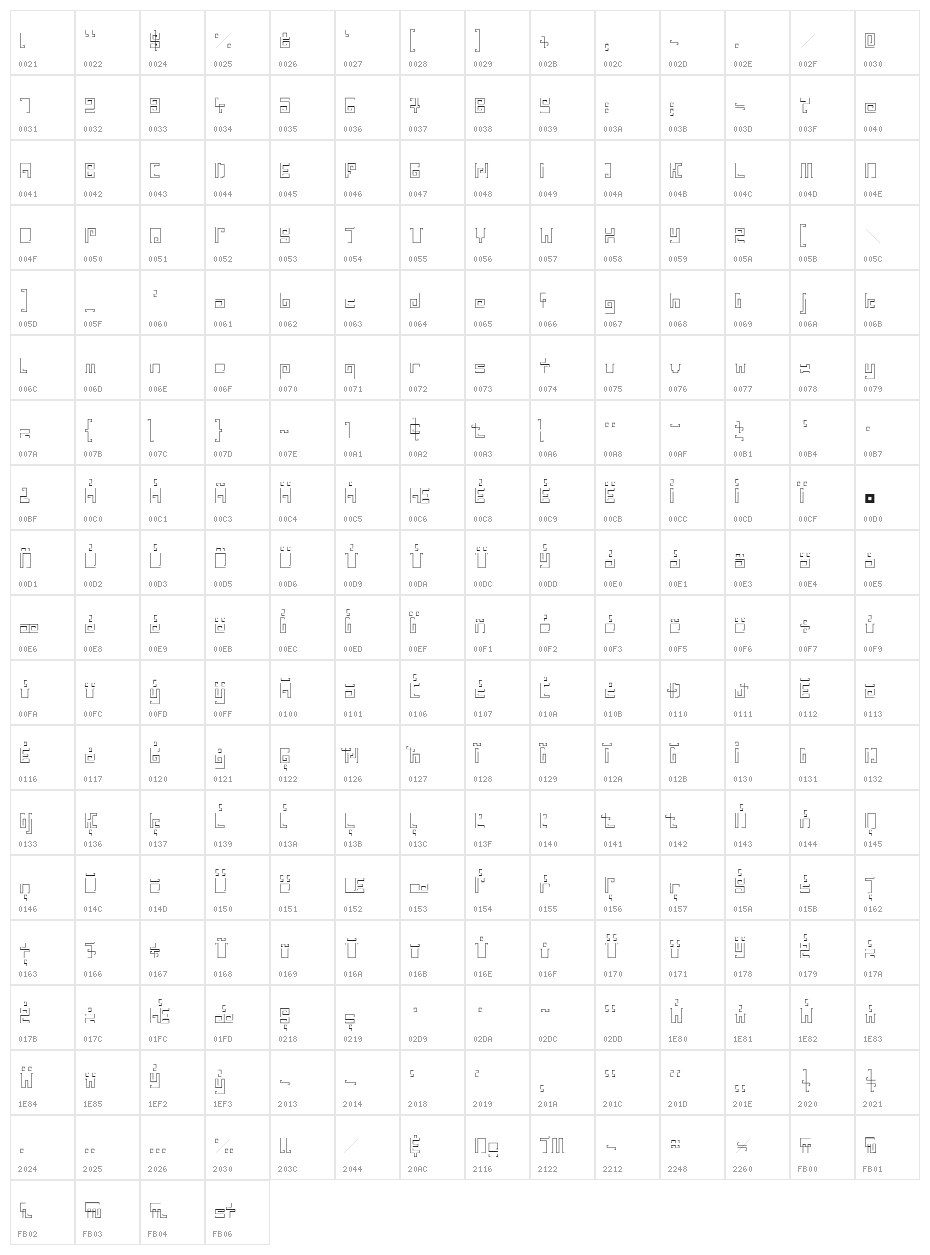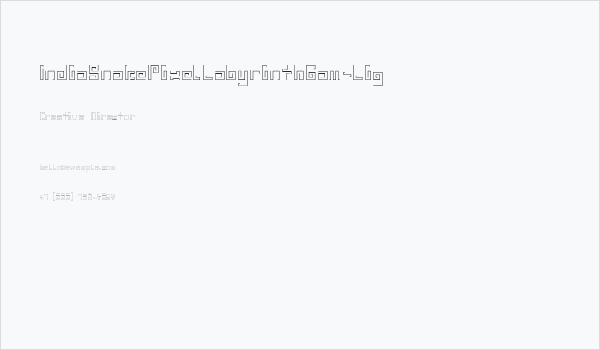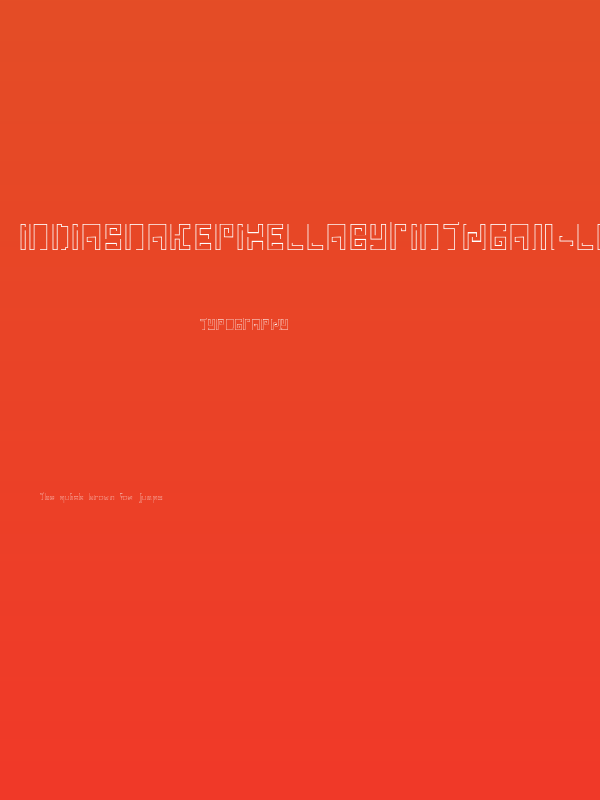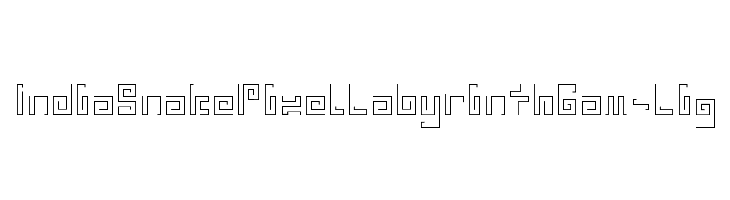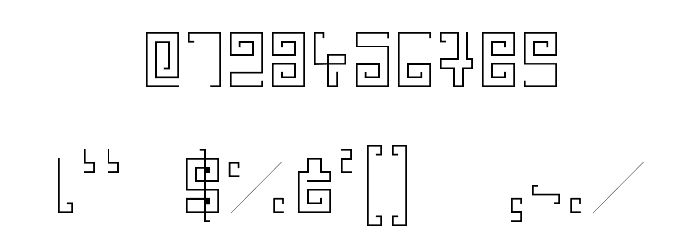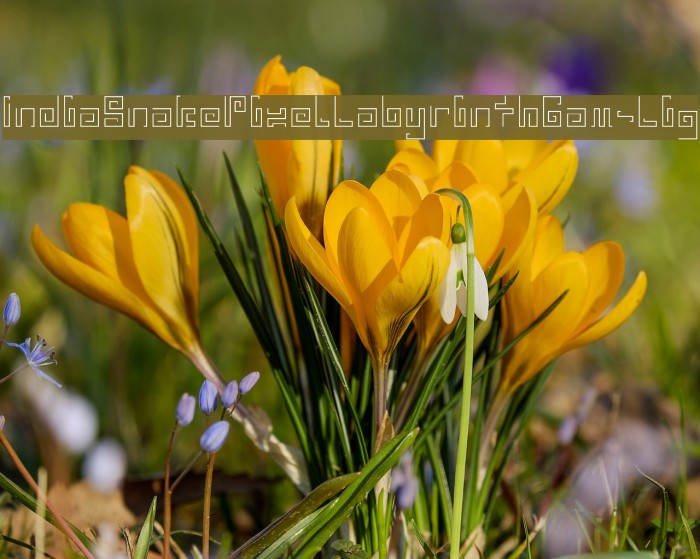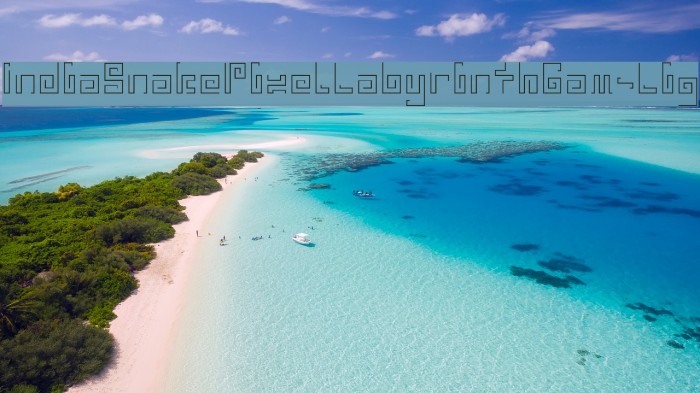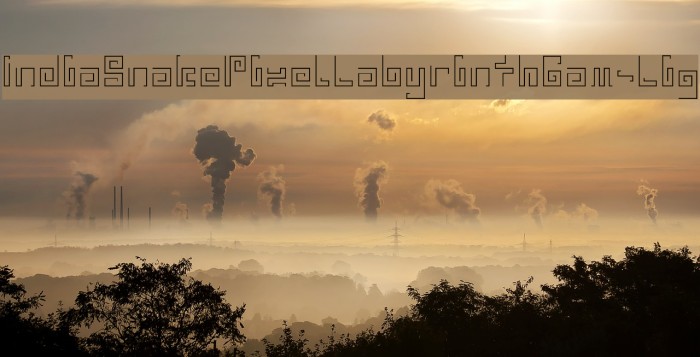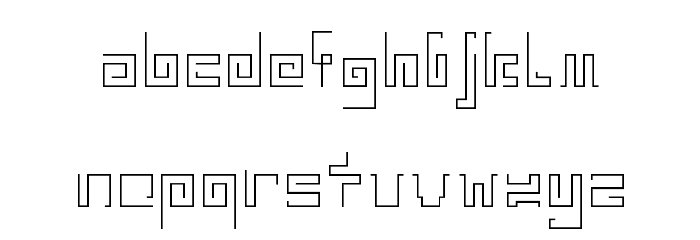
IndiaSnakePixelLabyrinthGam-Lig Font
IndiaSnakePixelLabyrinthGam-Lig Description
This font features a unique, maze-like design with a pixelated aesthetic. Each character is constructed with a continuous line that forms a labyrinthine path, giving it a distinct, geometric appearance. The uppercase and lowercase letters maintain a consistent style, with sharp angles and a uniform line thickness that creates a cohesive look. Numbers and special characters follow the same design principles, ensuring a harmonious overall appearance. The font's intricate design makes it stand out, ideal for projects that require a modern and digital feel.
| Use Case | Logos, Headlines, Digital Art |
| Proposed Projects | Ideal for video game graphics, digital art projects, tech-themed posters, and modern branding. |